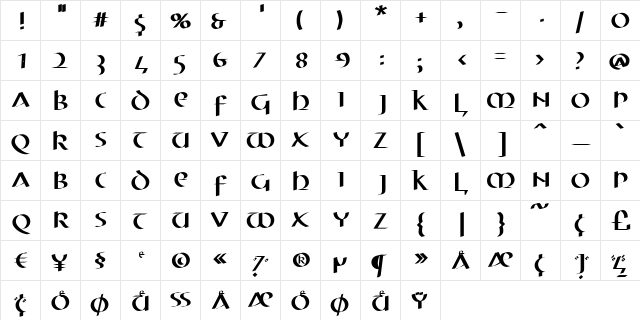
MKUnCiale-Pen Regular
Design Context for MKUnCiale-Pen Typeface
MKUnCiale-Pen is a composed and adaptable typeface that performs quietly and consistently across a wide range of design contexts.